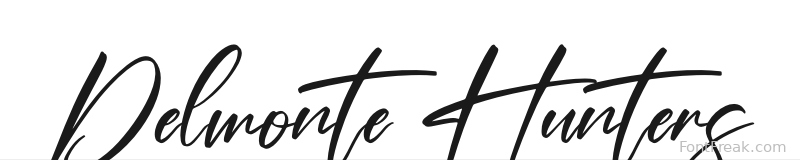
Delmonte Hunters
Delmonte Hunters, created by Perspectype Studio in 2021, is a stunning script font that exudes elegance and sophistication. This font features a flowing, cursive style characterized by its smooth curves and artistic strokes, giving it a handwritten feel that adds a personal touch to any design. The stroke weight varies, offering a dynamic contrast that enhances its visual appeal. The spacing is well-balanced, allowing for seamless readability while maintaining an artistic flair. Decorative elements, like the stylish ligatures and swashes, contribute to its charm, making it an excellent choice for projects that require a touch of class.
This versatile font is particularly well-suited for a variety of creative applications. It can elevate wedding invitations, providing a romantic and elegant aesthetic that captures the essence of love. Additionally, Delmonte Hunters shines on movie posters, where its dramatic script can draw attention and evoke emotions. Restaurant menus can benefit from its stylish presentation, enhancing the dining experience by making the menu items appear more appealing. Moreover, content creators looking to make their social media graphics stand out will find this font an excellent choice for quotes or promotional material.
Targeted primarily at graphic designers, small business owners, and content creators, Delmonte Hunters caters to those seeking a unique yet elegant font to enhance their branding or personal projects. The combination of its artistic flair and usability makes it an invaluable asset for anyone in the creative field.
What sets Delmonte Hunters apart is its ability to merge artistry with practicality, making it not only visually striking but also highly functional. With its free license, the Delmonte Hunters font free download is an opportunity for designers to enrich their toolkits with a font that embodies both creativity and professionalism.